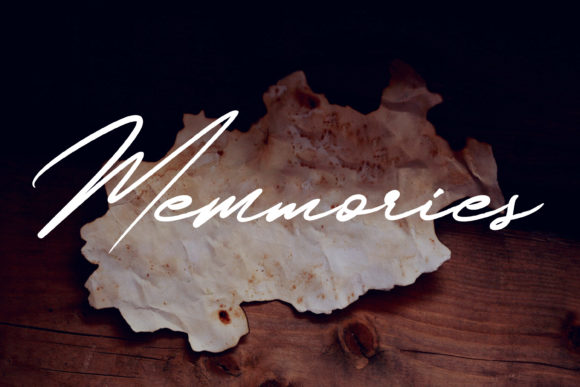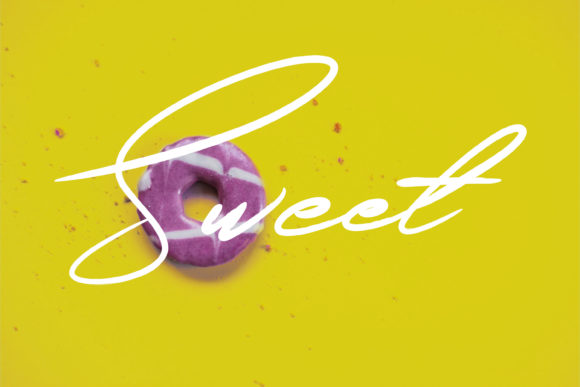
Carolyna Font
db-ku.com - Script & Handwritten -- Carolyna is a slim styled and delicate script font that exudes elegance and class. This font was particularly crafted for those who need a beautiful and refreshing look to their designs.